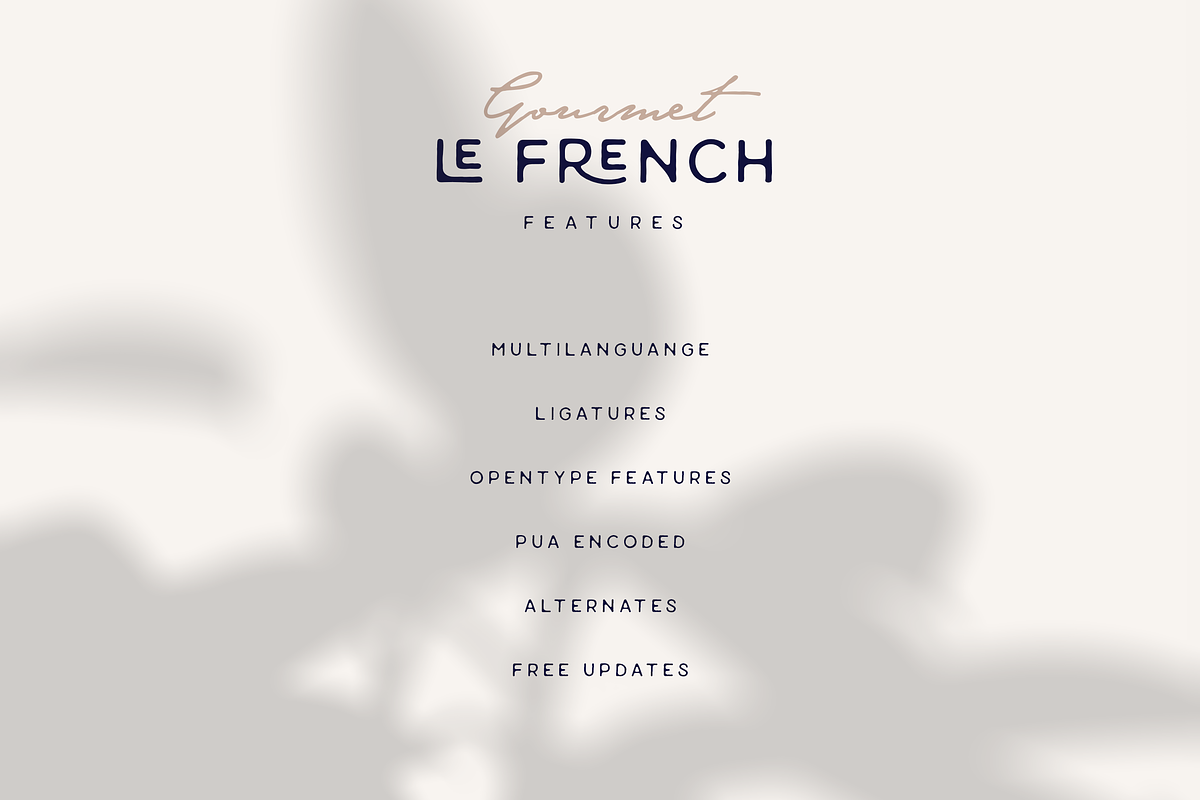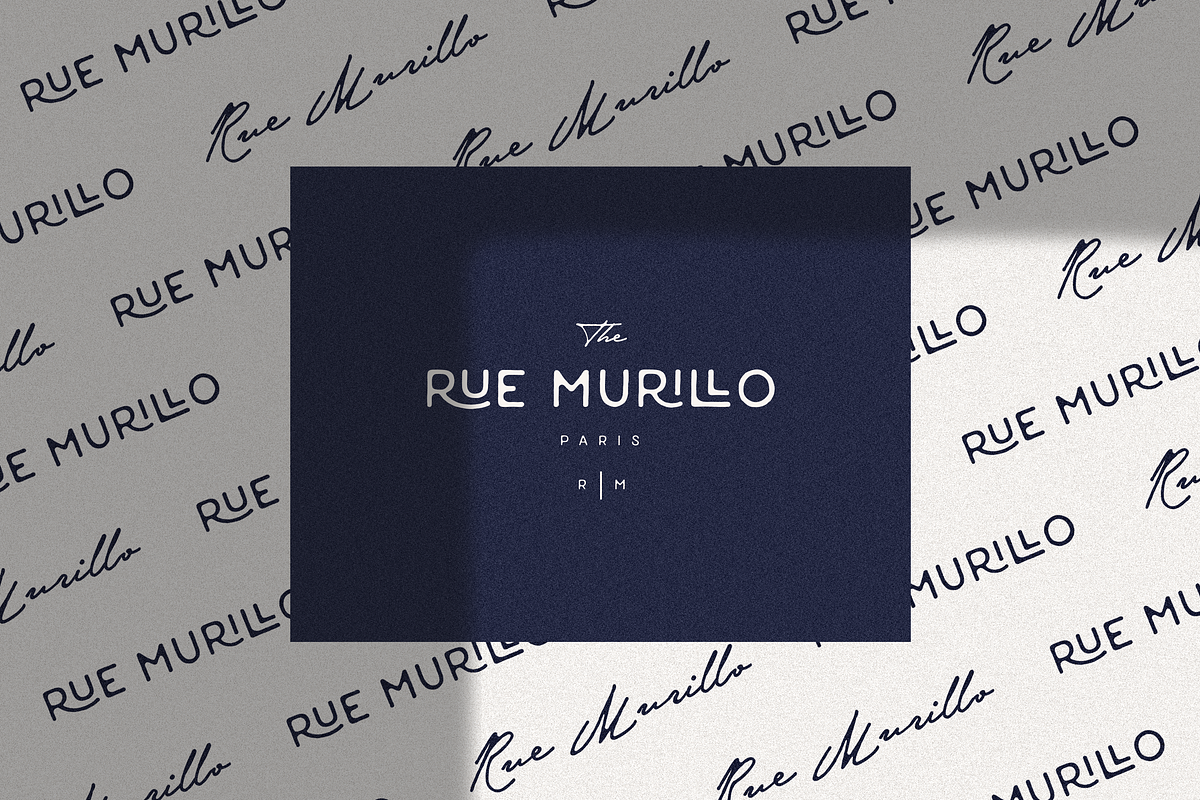
Le French - Organic Paired Duo
Gourmet Le French Sans - Organic Modern Paired Duo by Sans and Sons
introducing our new "Gourmet Le French" font duo with Modern Elegant Style this is perfect for branding, logos, invitation, masterheads and more.
Gourmet Le French Features :
- Multilanguange
- Ligatures ( Gourmet Le French Sans )
- Alternates ( Gourmet Le French Sans )